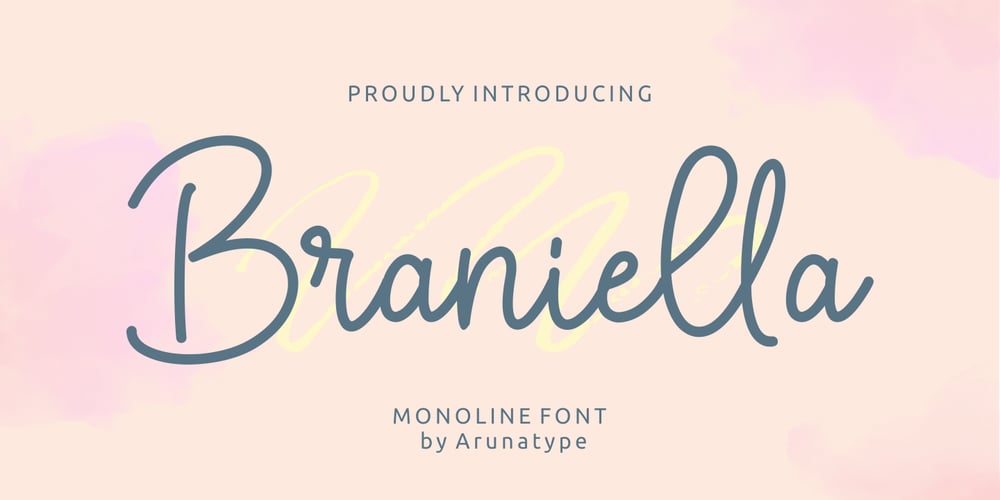
Braniella Font Family was designed by Yudi Safiyudin and published by Arunatype. Braniella contains 1 styles and family package options. Braniella is a dainty, flowing handwritten font. Sweet and playful, this font is great for logos, titles, posters, magazines, books, comics, or any creative design project.